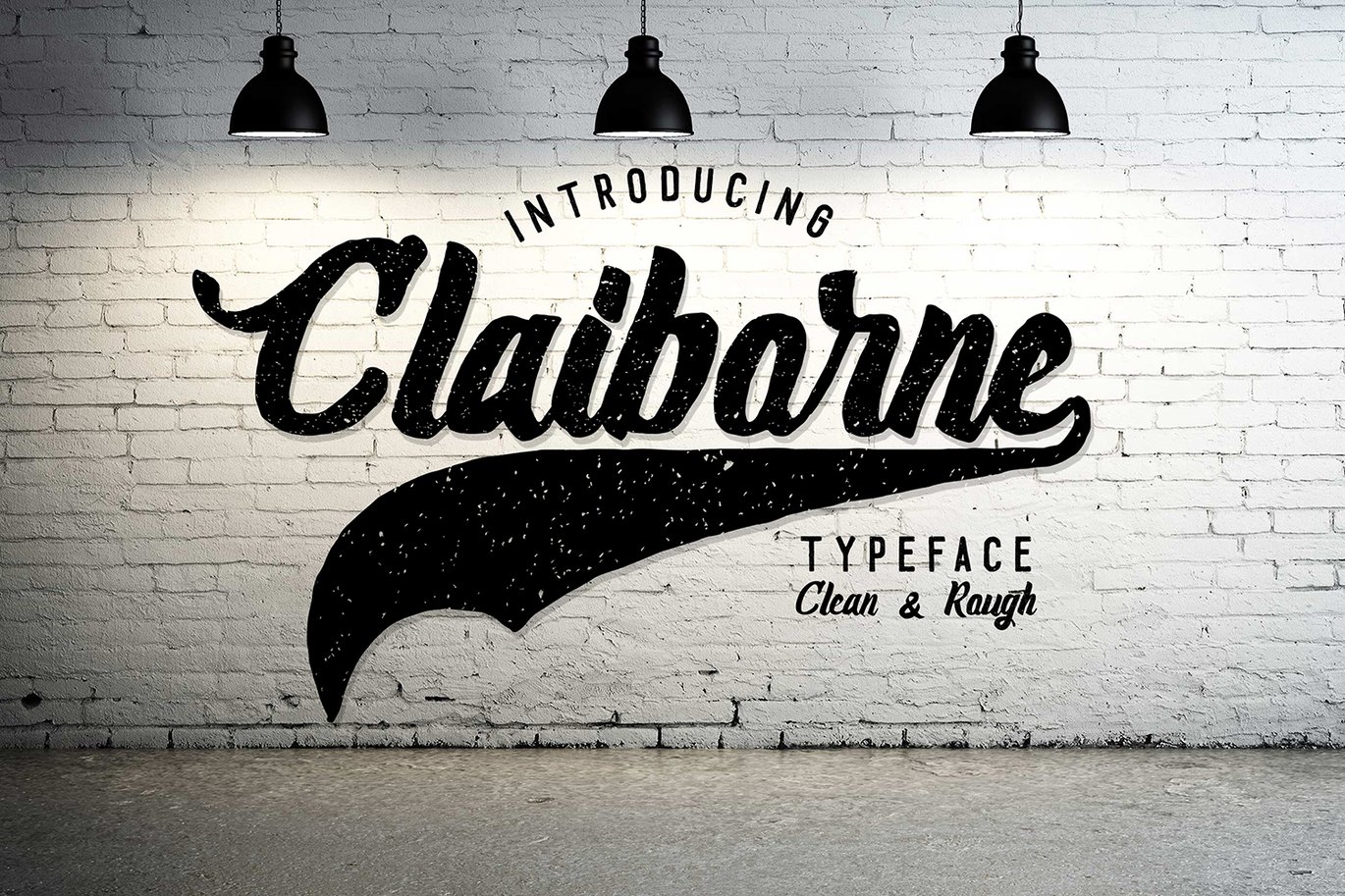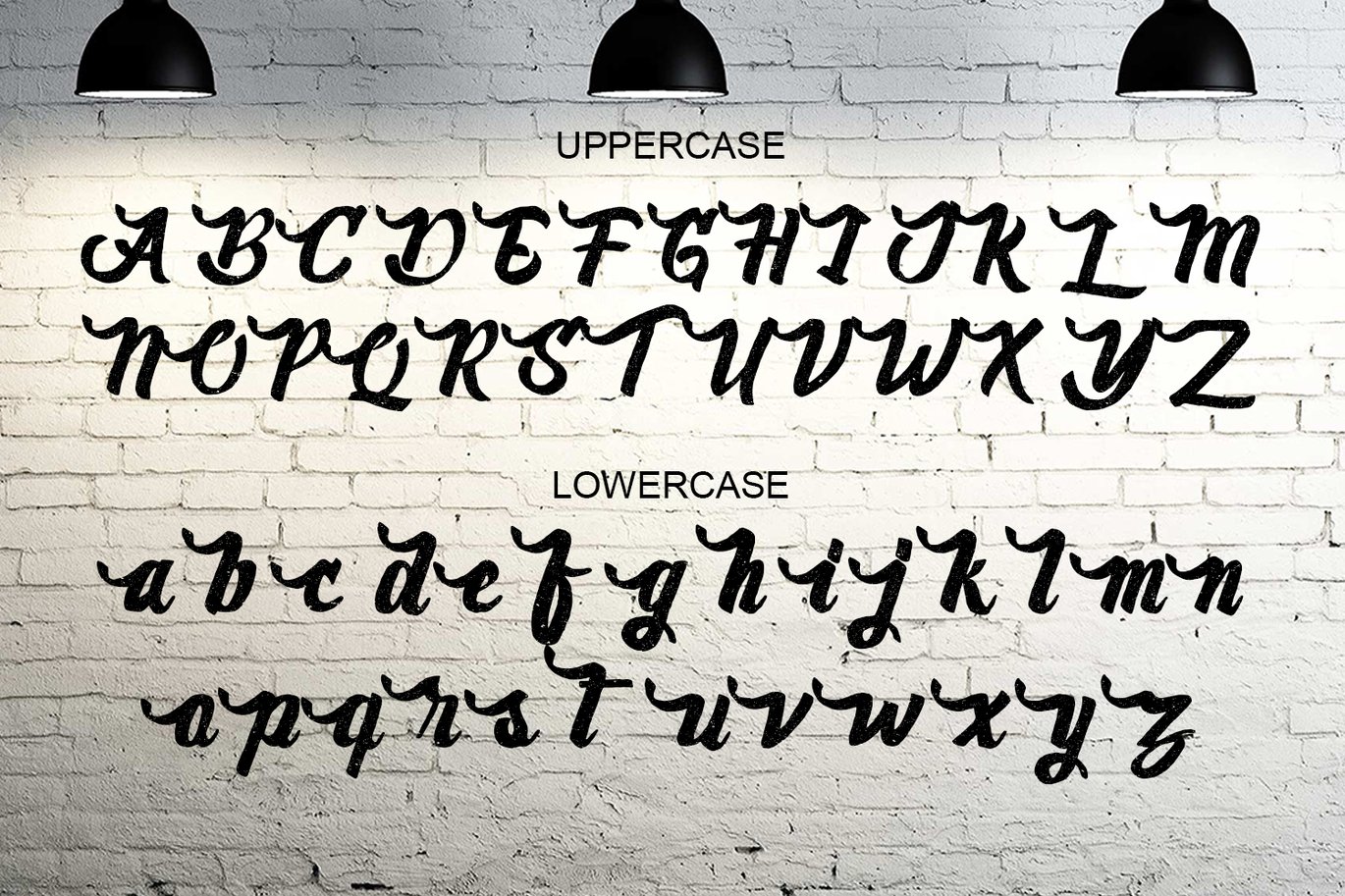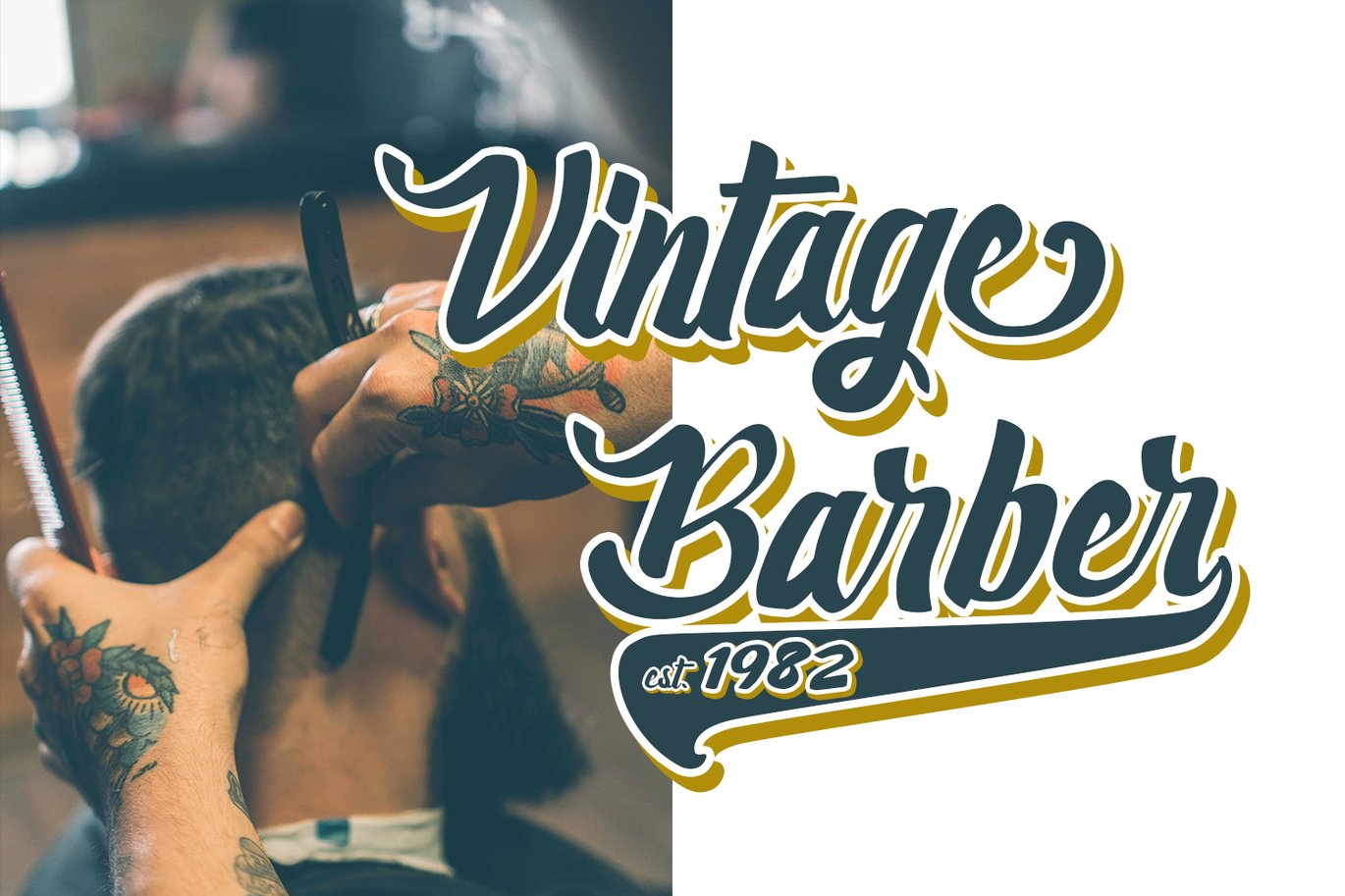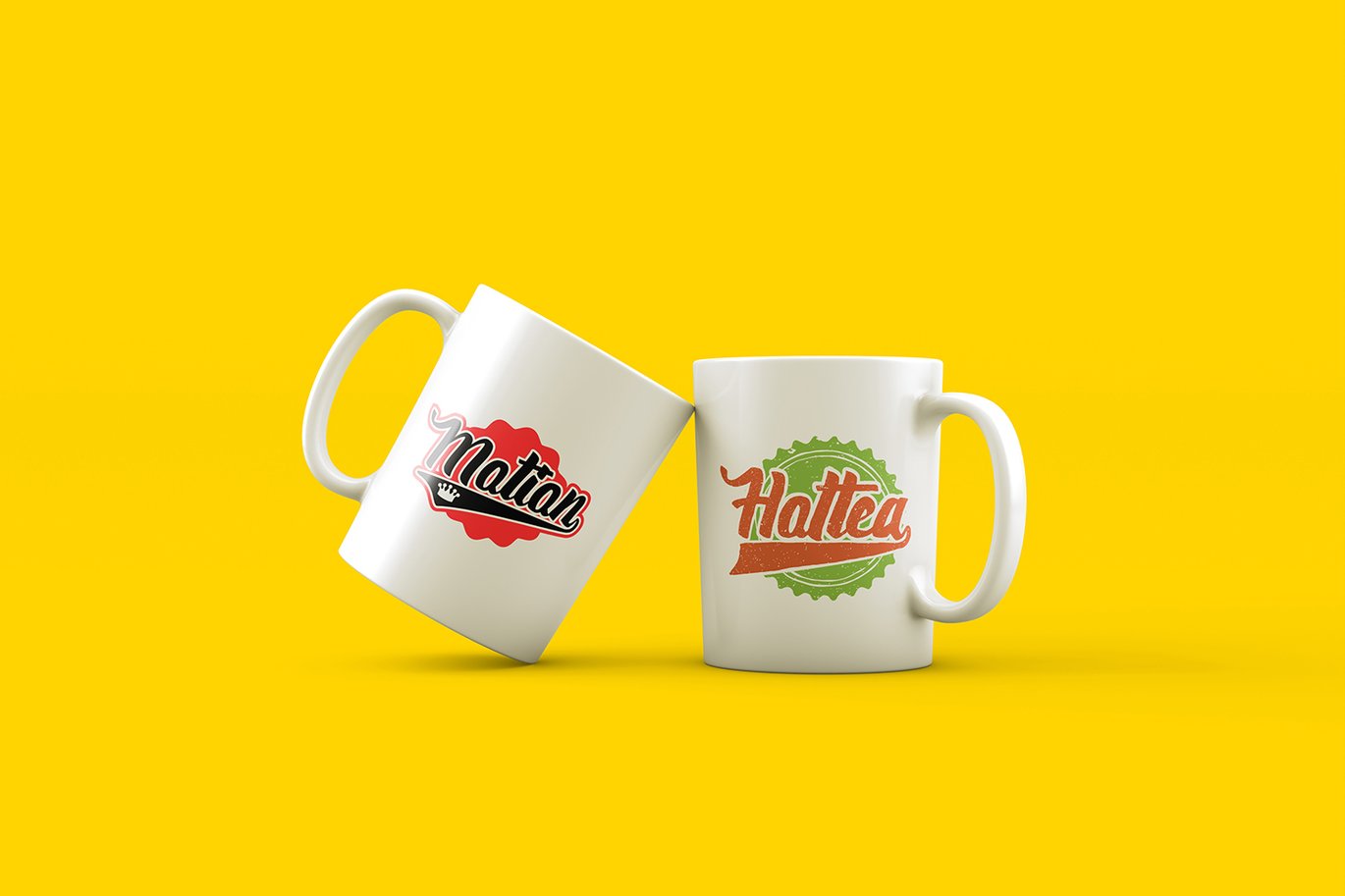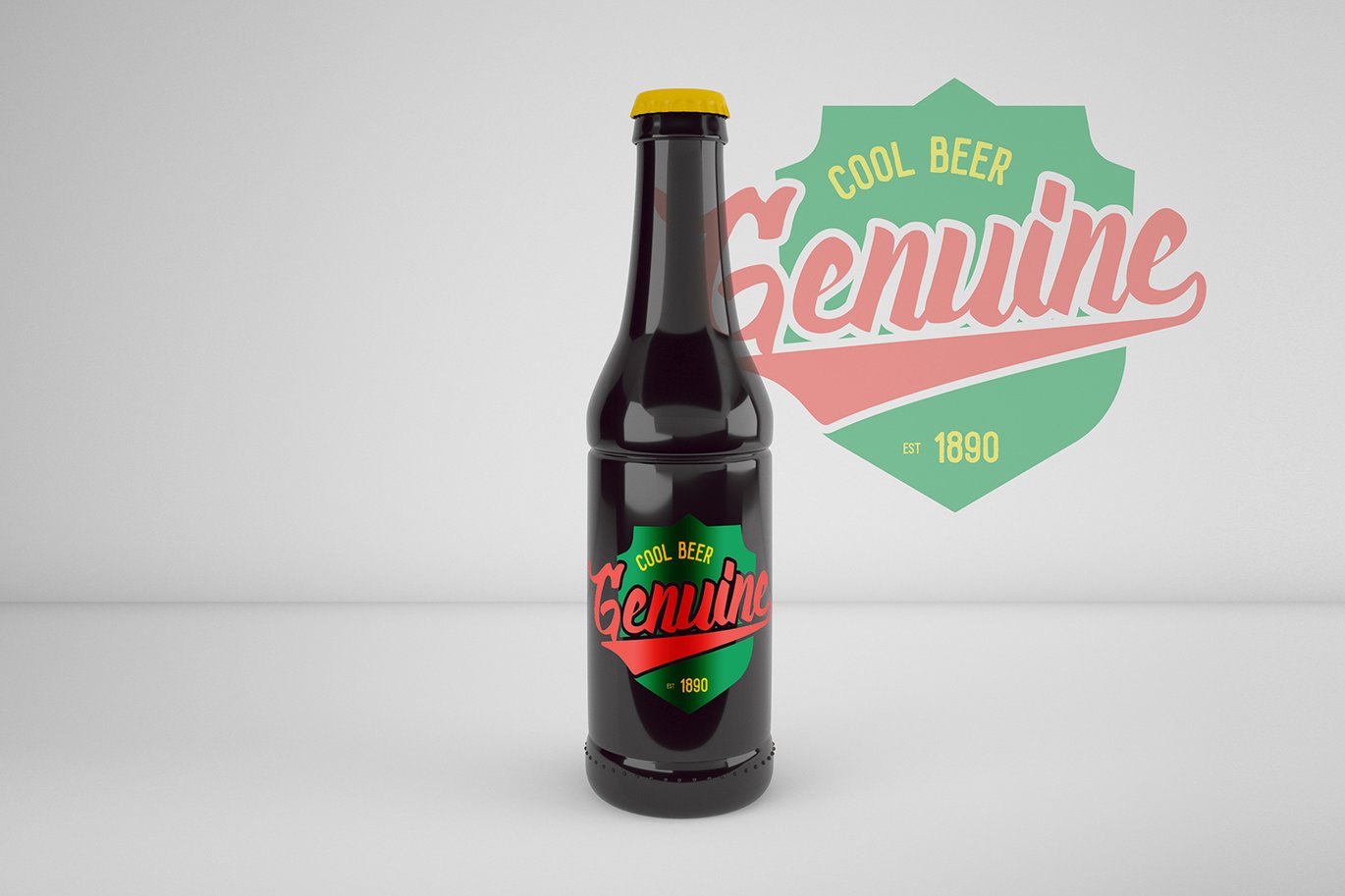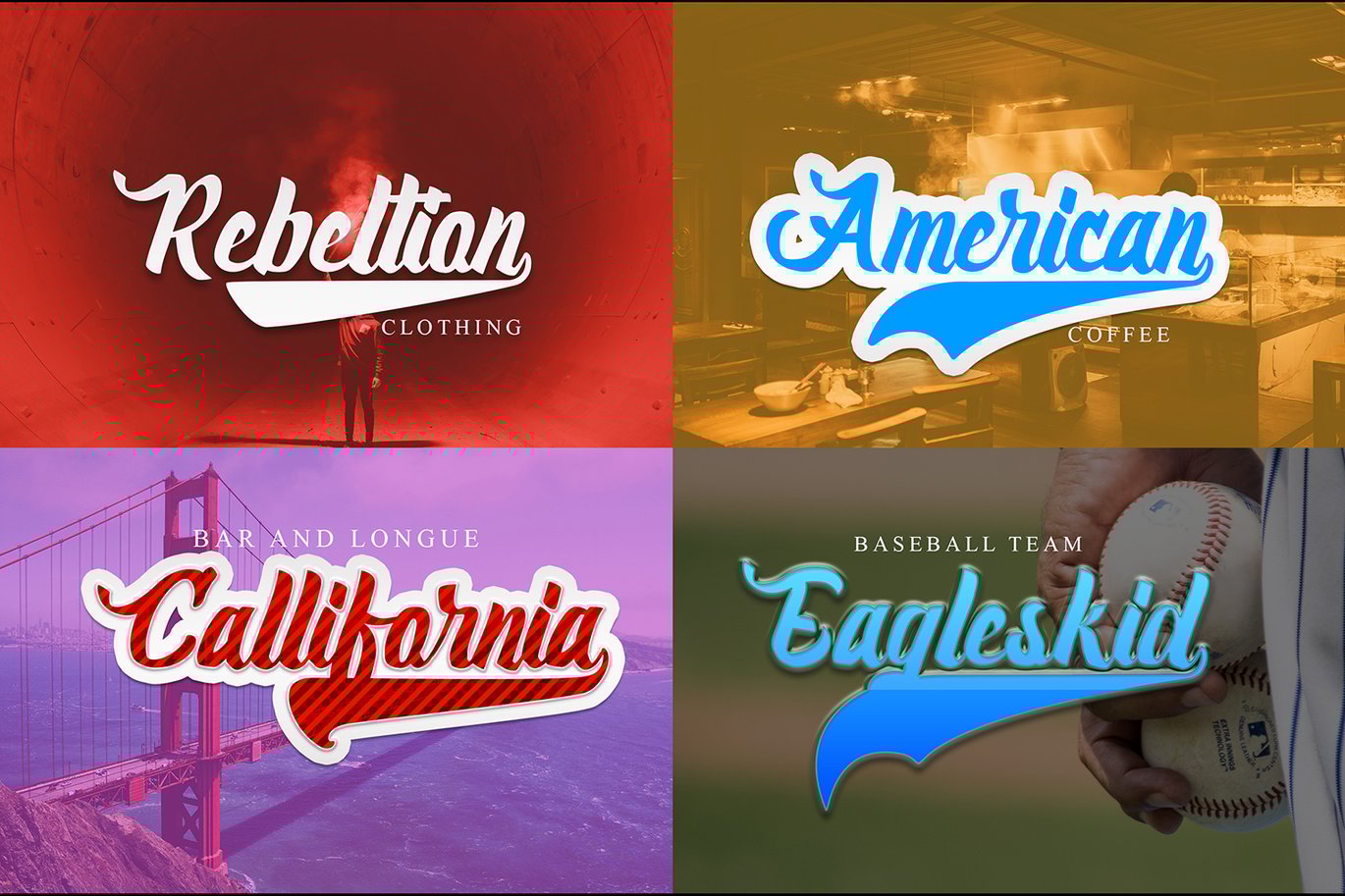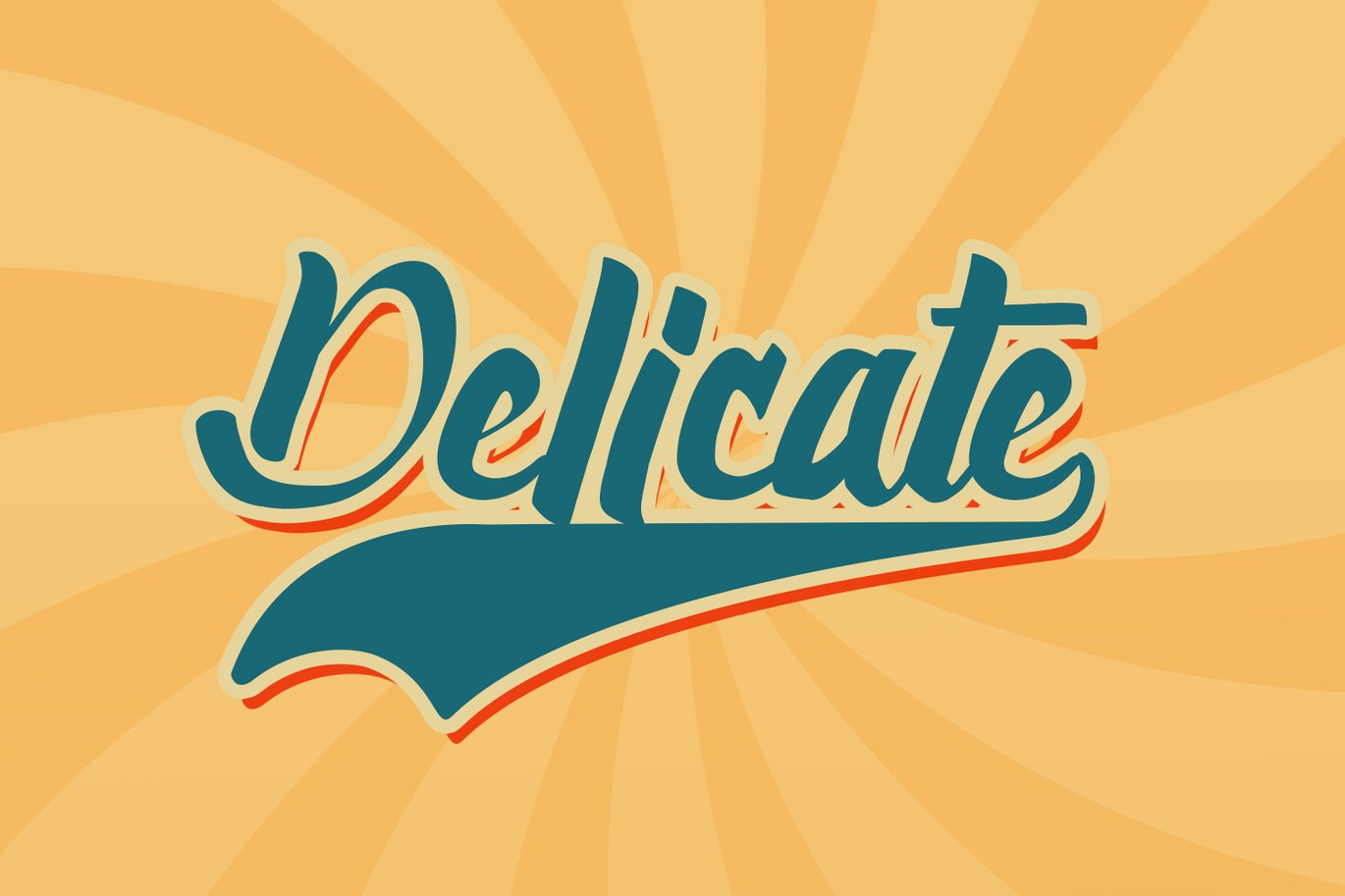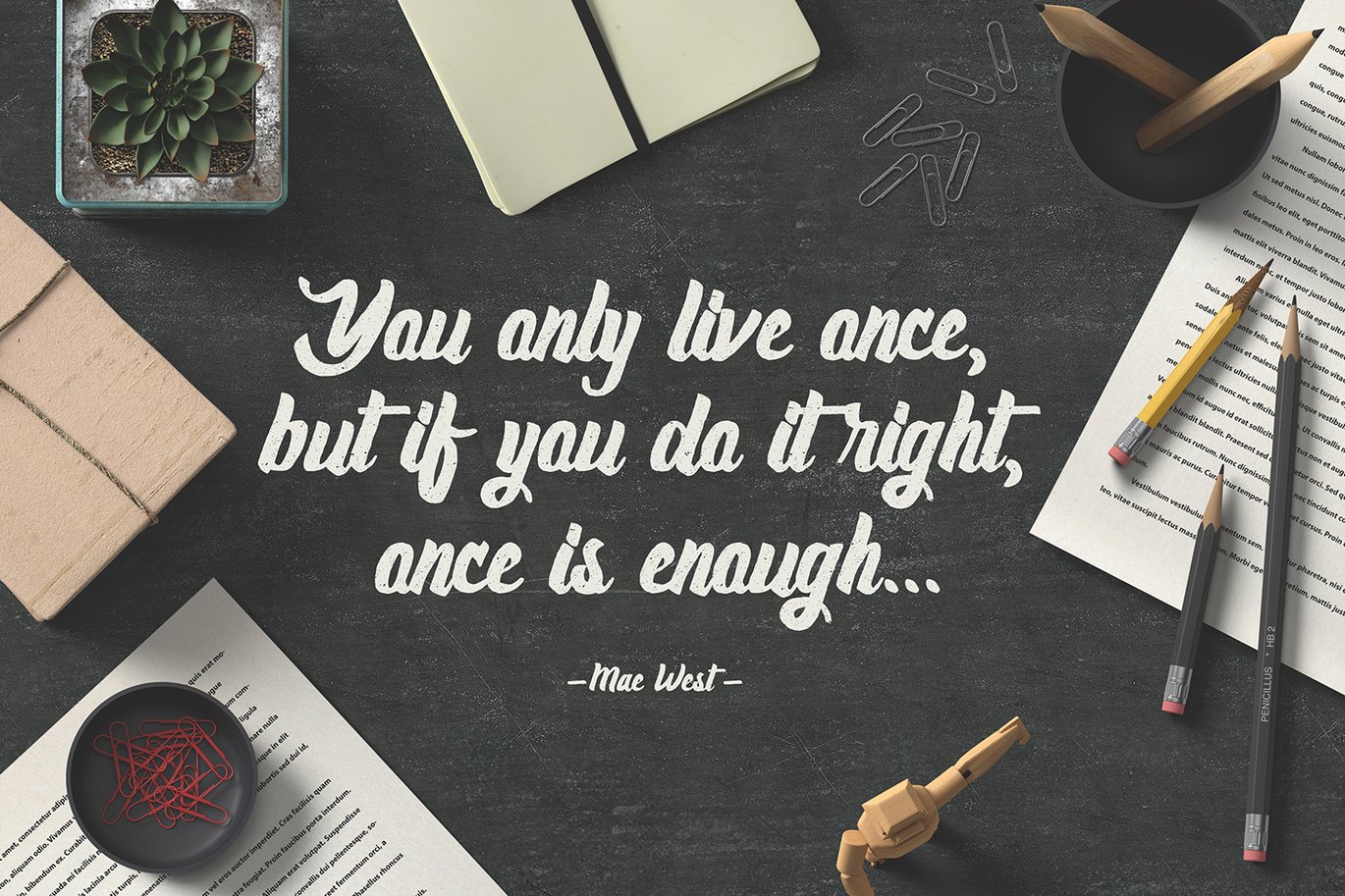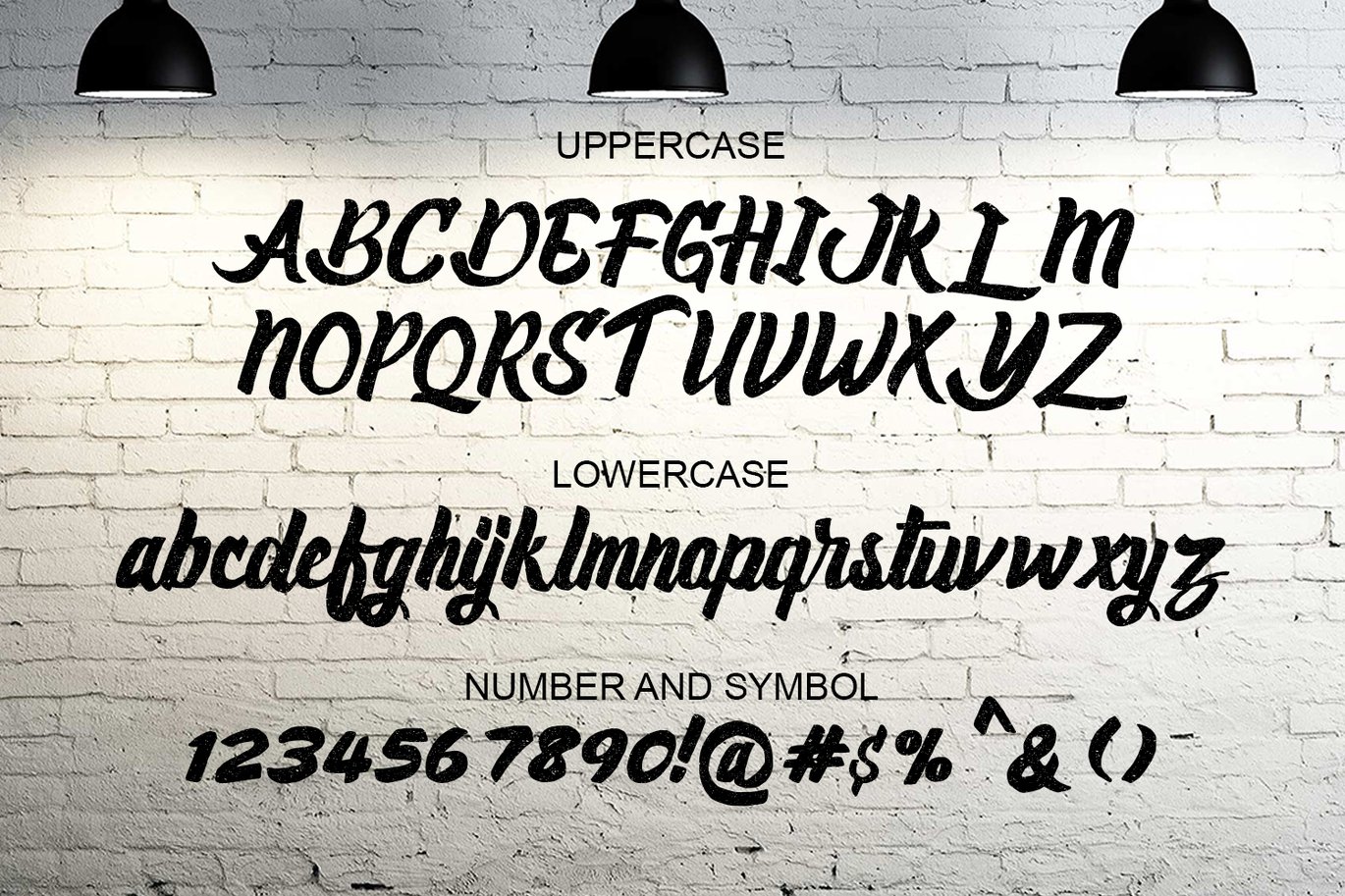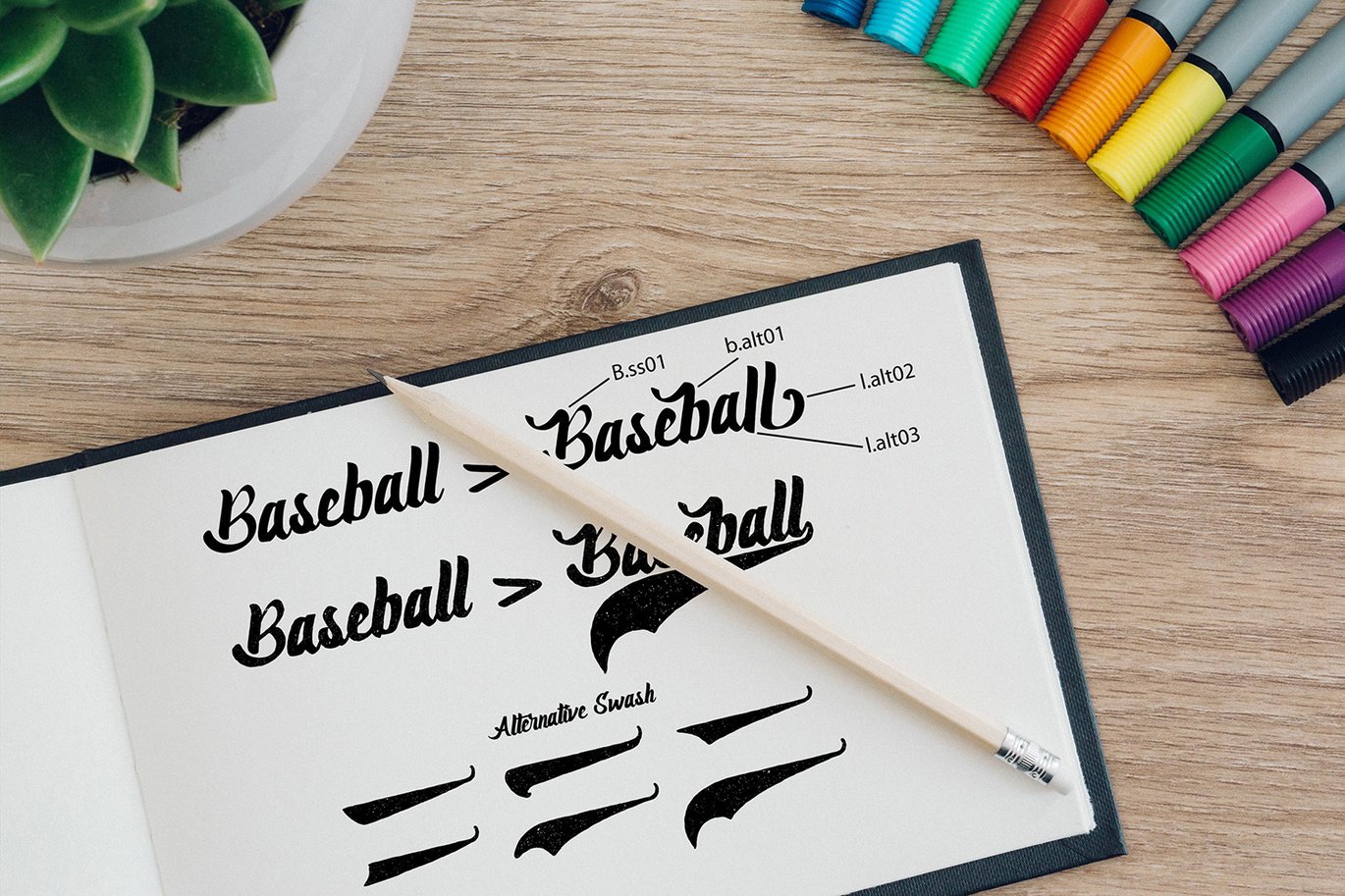
Claiborne Typeface
Hello I’m really excited to introduce Claiborne script typeface font with clean & rough style. Claiborne perfect for poster design, book covers, merchandise, fashion campaigns, newsletters, branding, advertising, magazines, greeting cards, album covers, and quote designs and more.
Feature
*Uppercase
*Lowercase
*Number & Symbol
*International Glyphs
*Alternative lowercase
*Ligature
*Swash